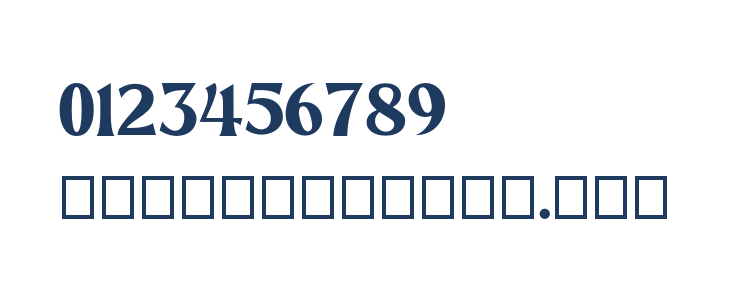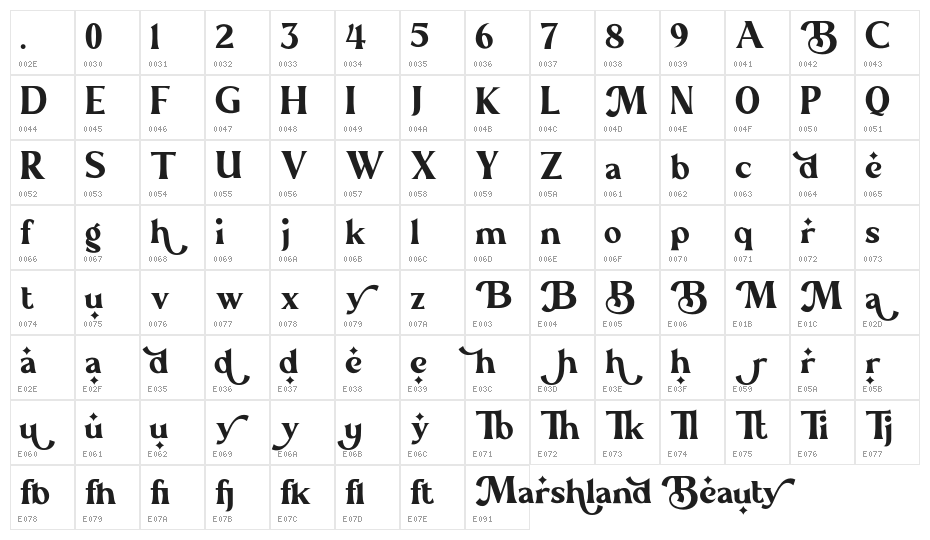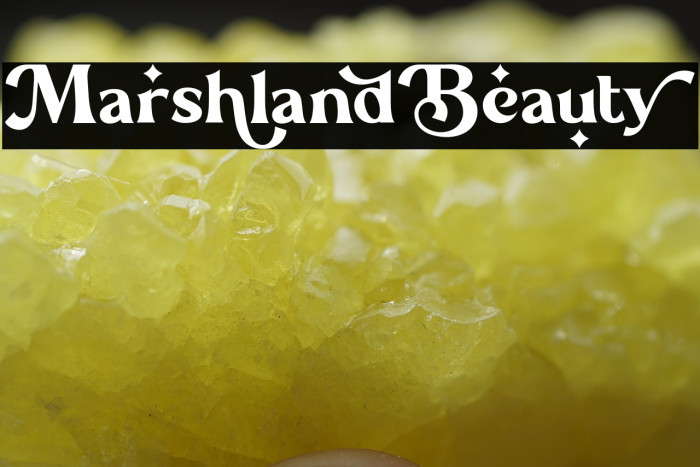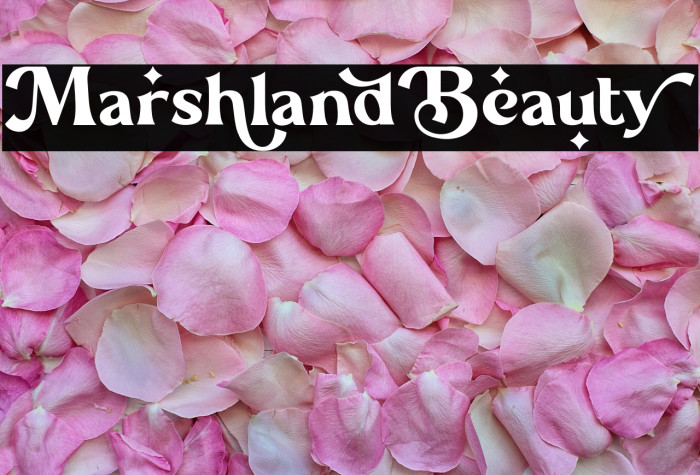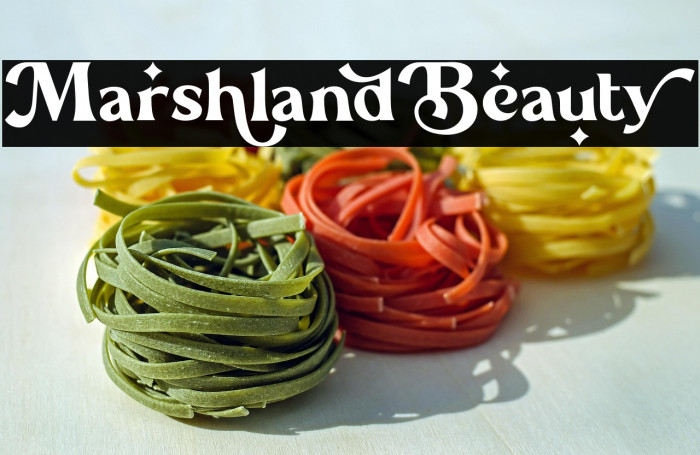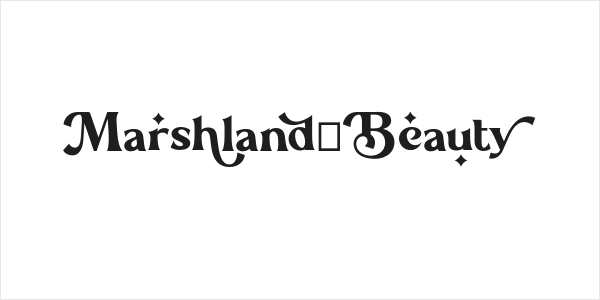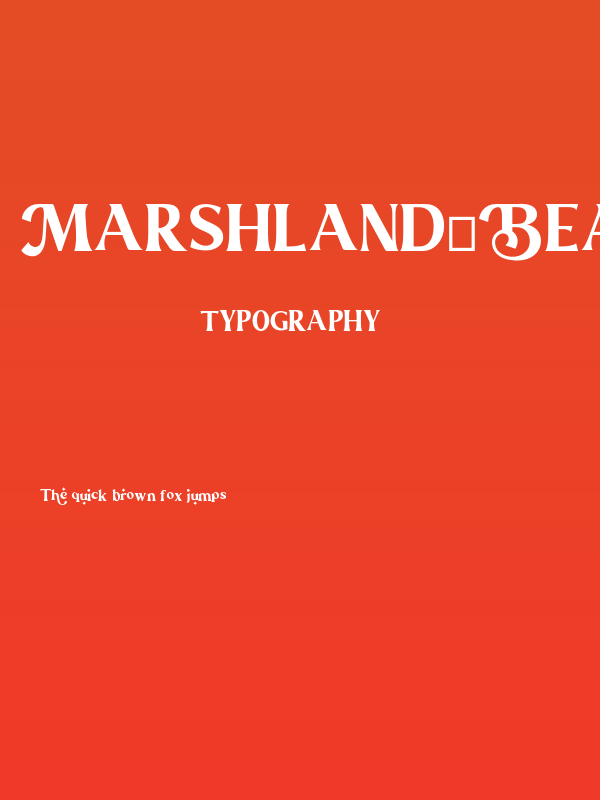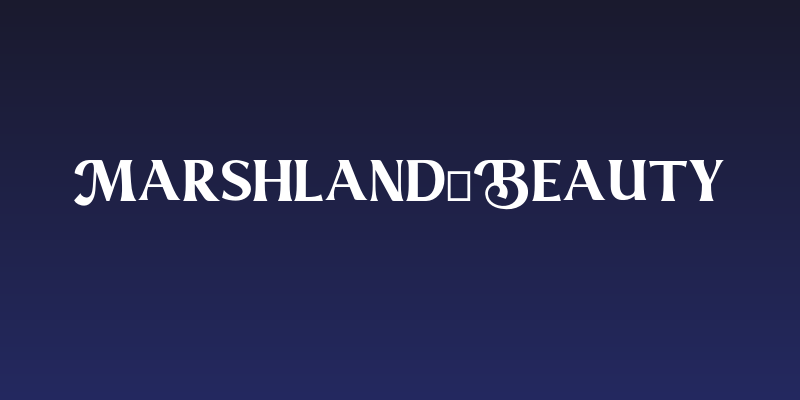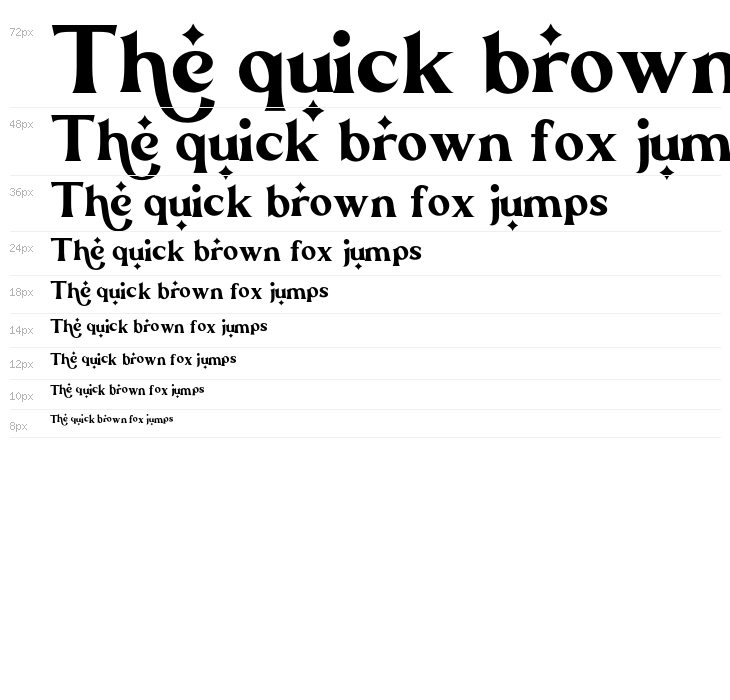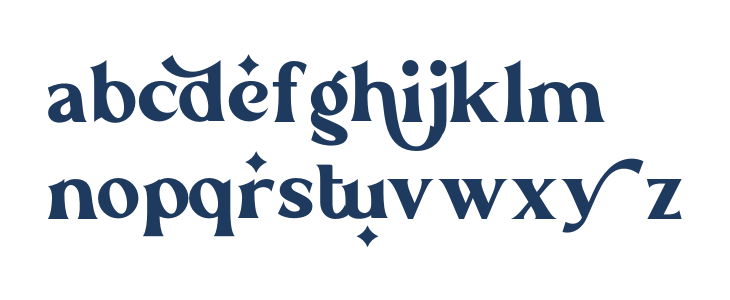
Marshland_Beauty Font
Marshland_Beauty Description
This font features a unique blend of traditional and modern elements, characterized by its bold and artistic strokes. The uppercase letters exhibit a strong presence with distinctive curves and flourishes, particularly noticeable in characters like B and R. The lowercase letters maintain a playful yet elegant style, with some characters like 'g' and 'y' having extended tails that add to the font's charm. The numerals are bold and consistent, ensuring readability while maintaining the font's artistic flair. The special characters are designed to complement the overall style, making this font versatile for various creative applications.